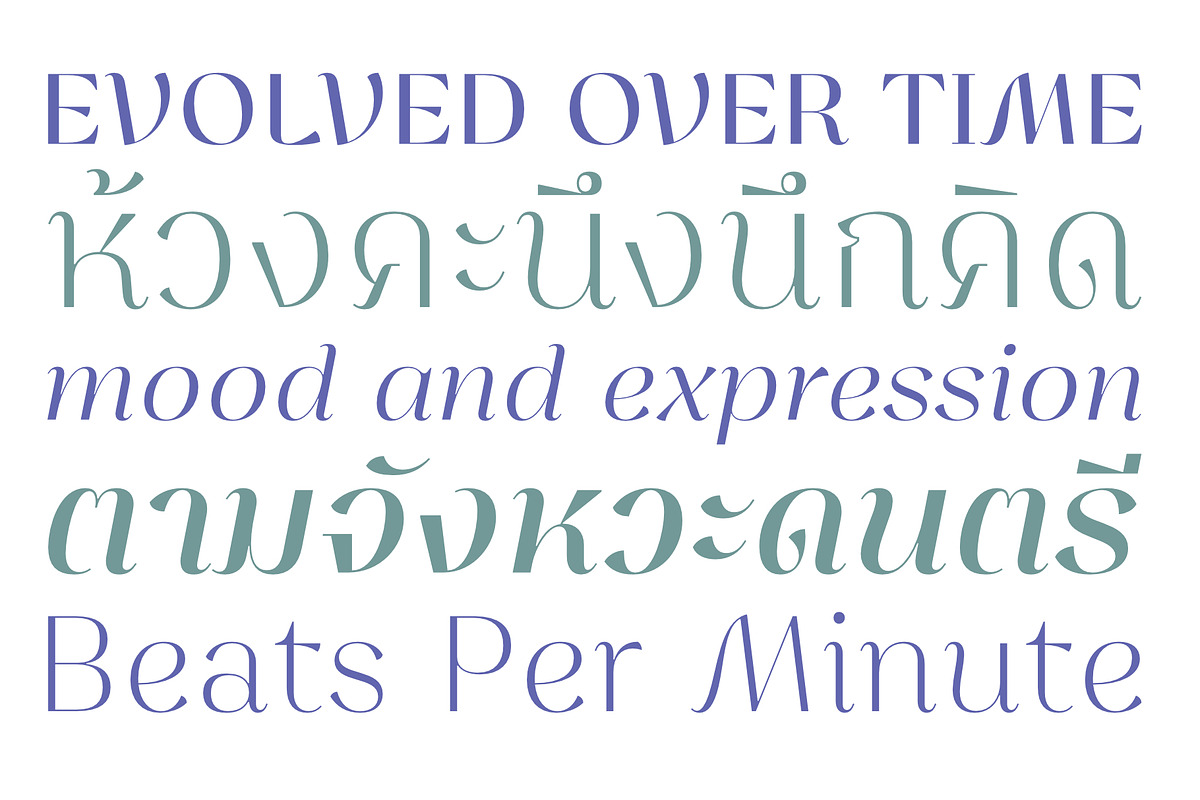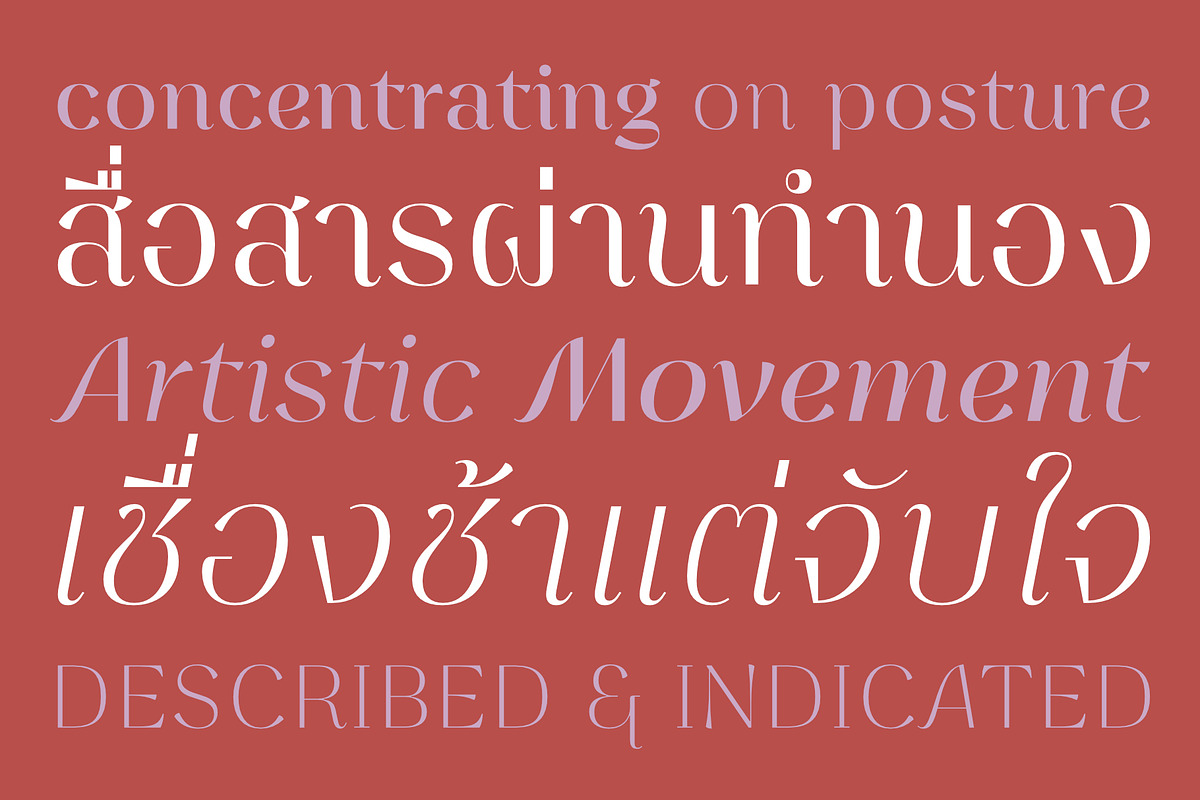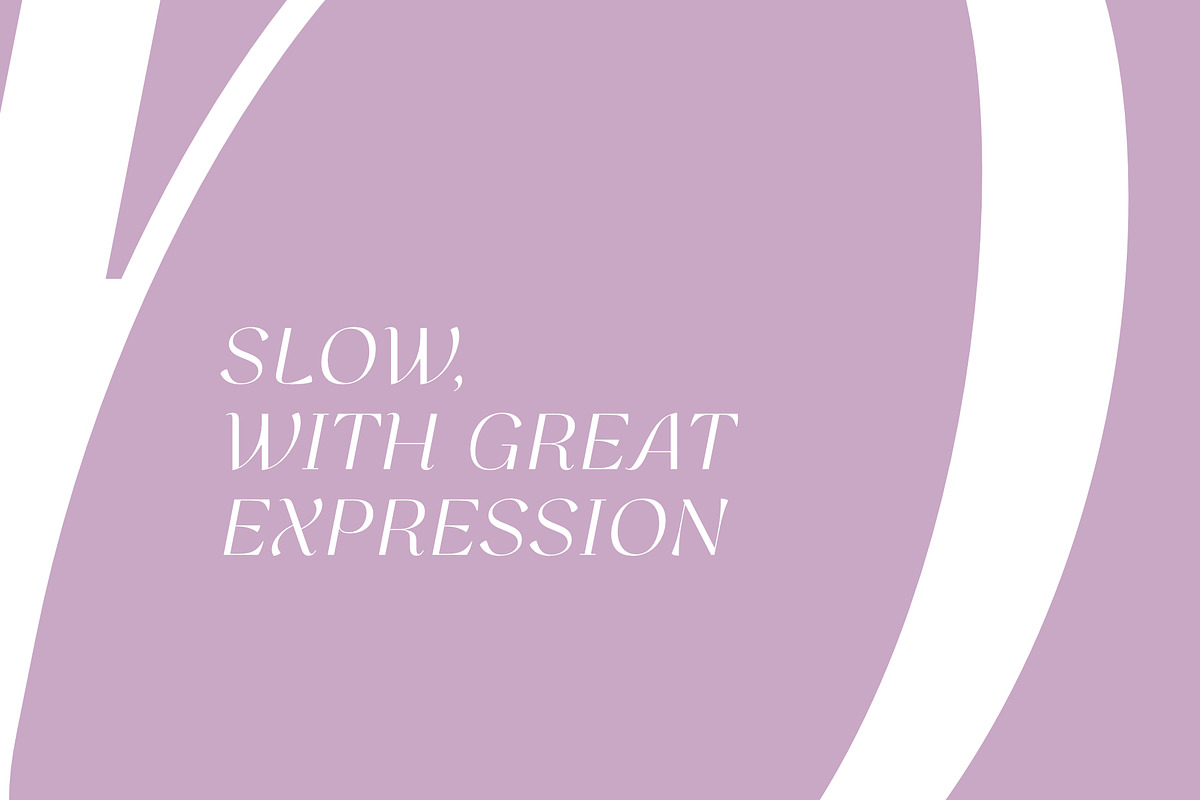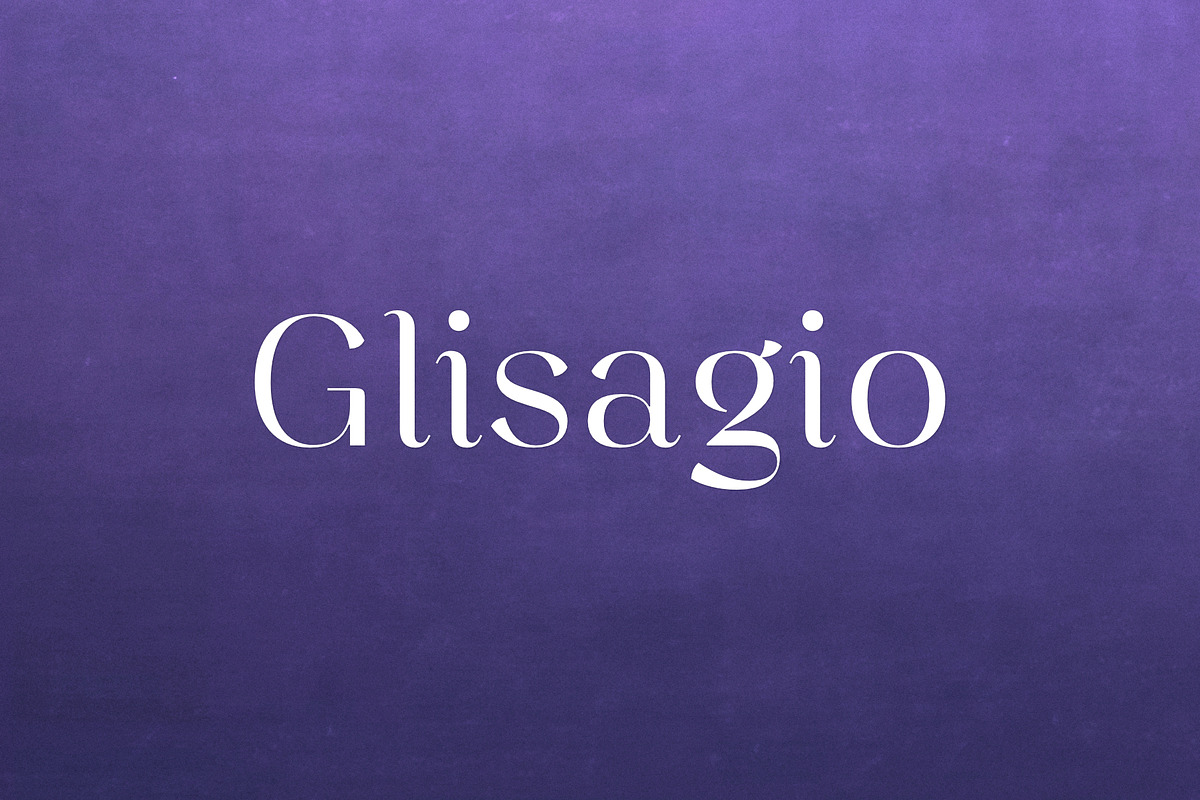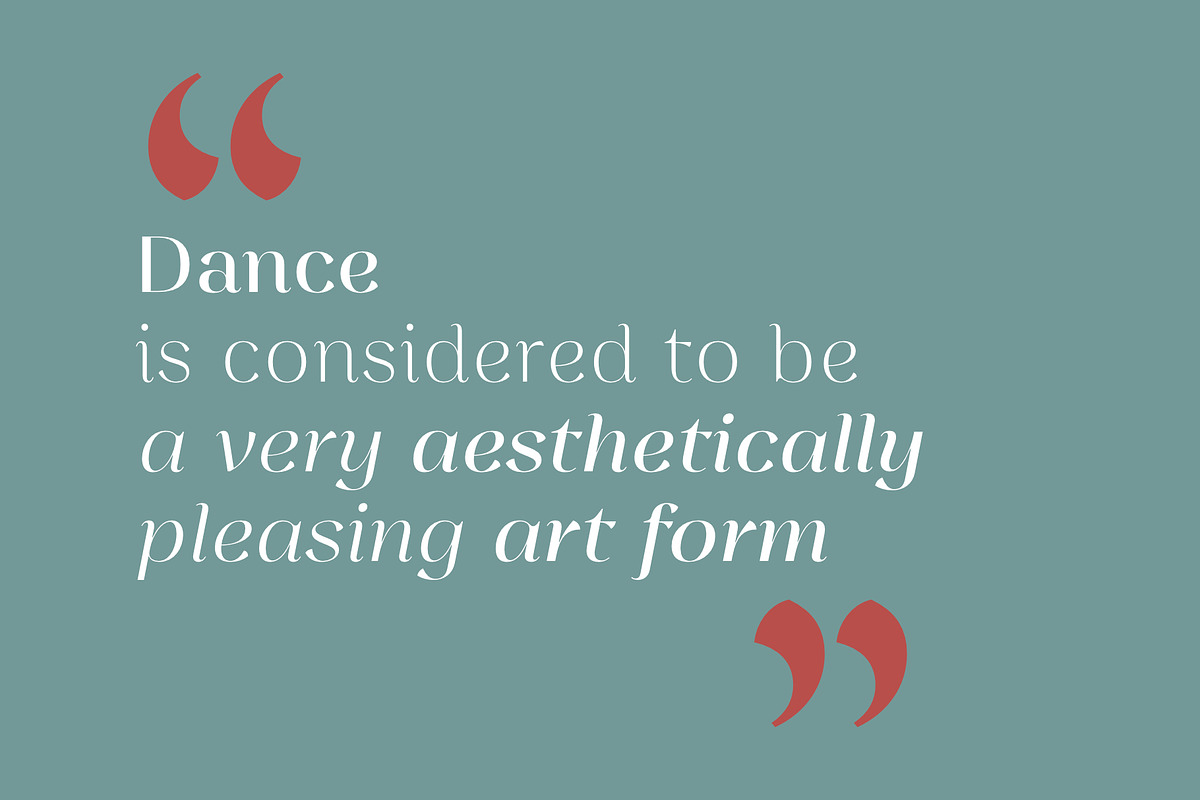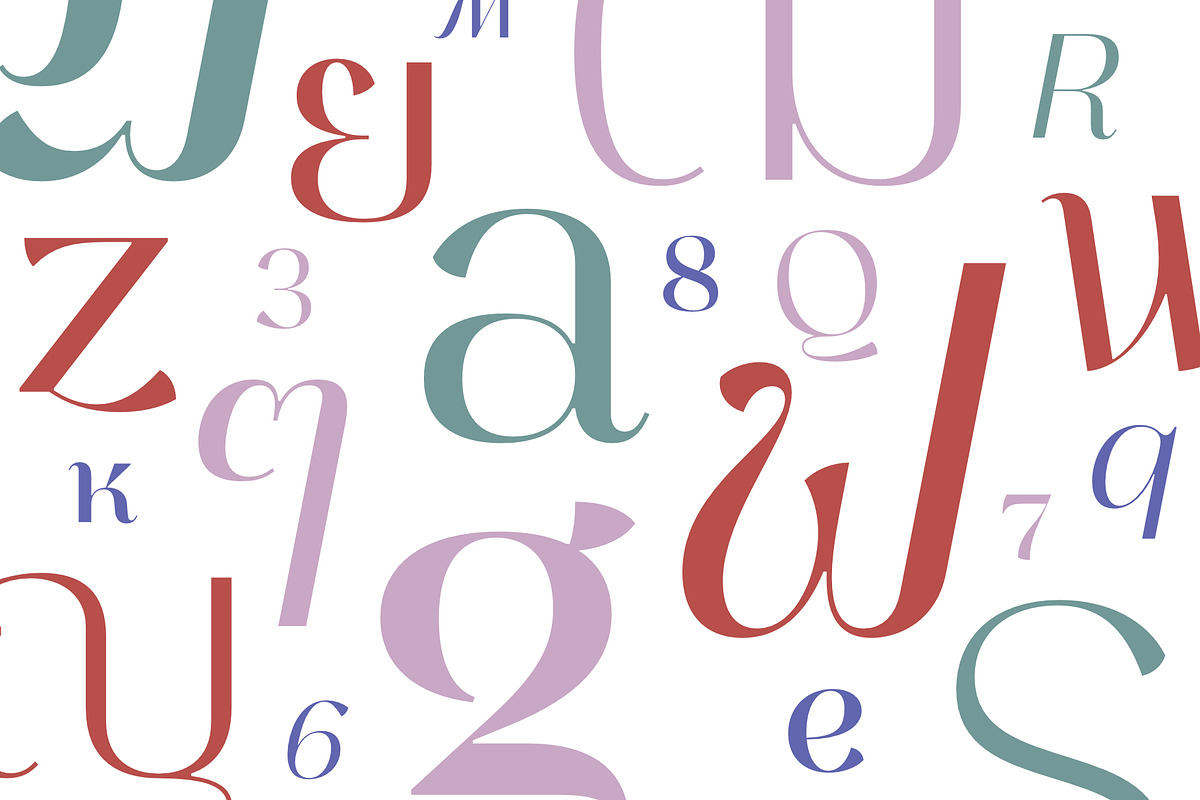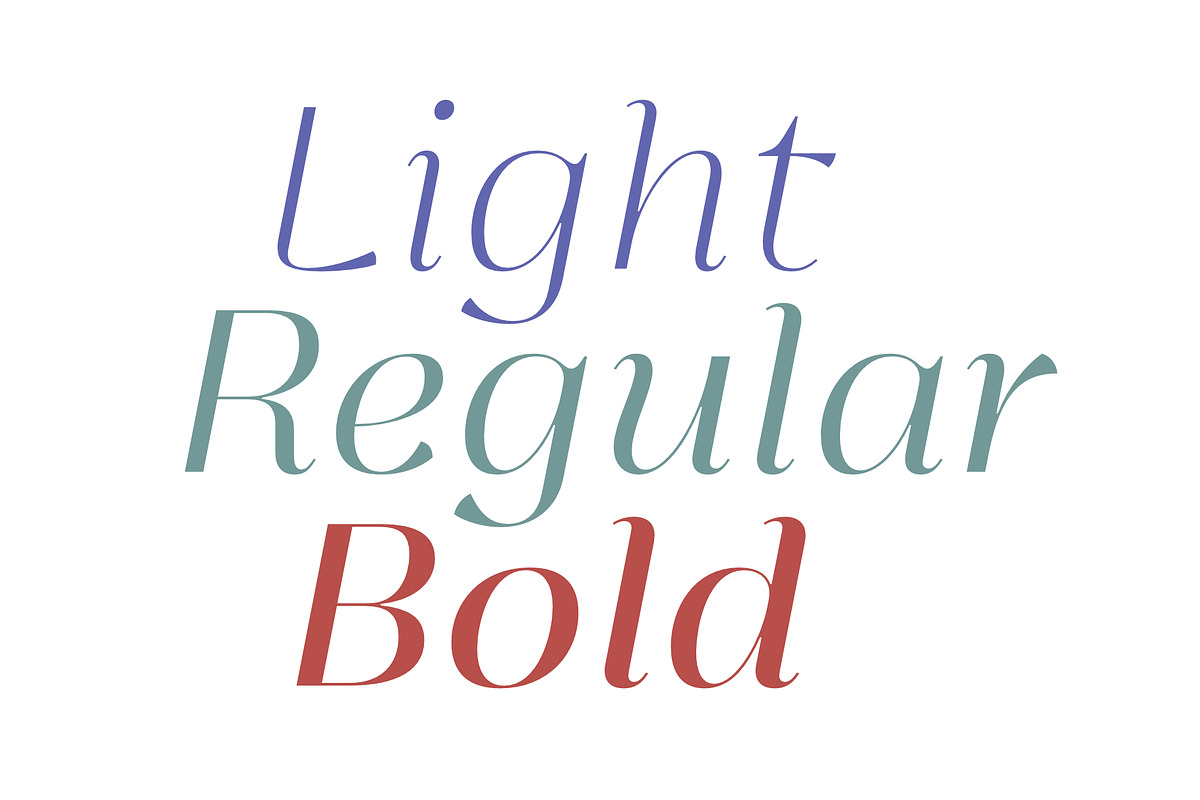
Glisagio
Glisagio, A high-contrast serif typeface inspired by the poise of ballet and the rhythm of tempo. Includes light, regular and bold with matching italics. Supports Thai and Latin scripts.